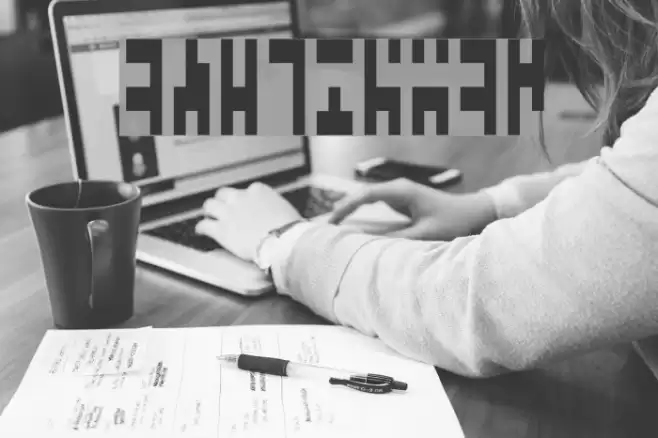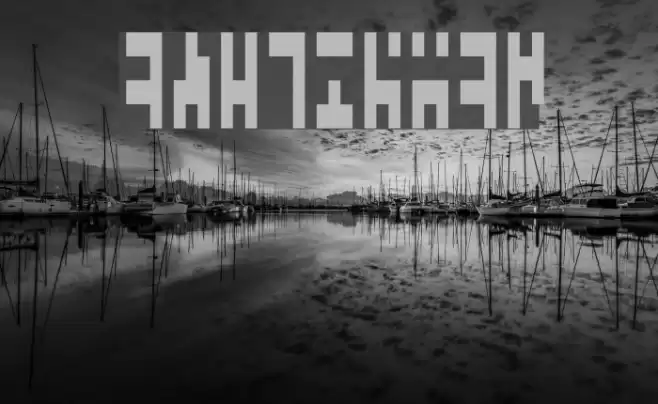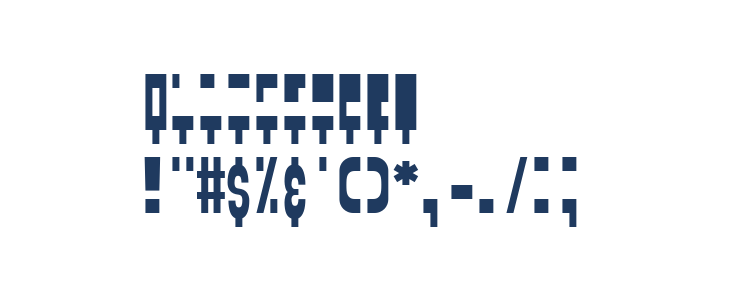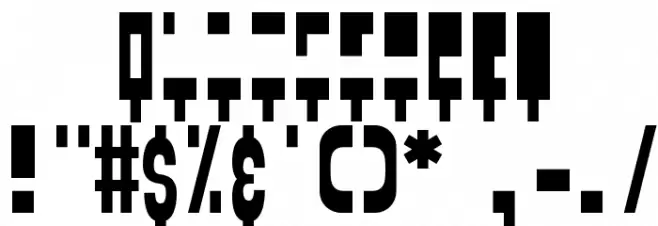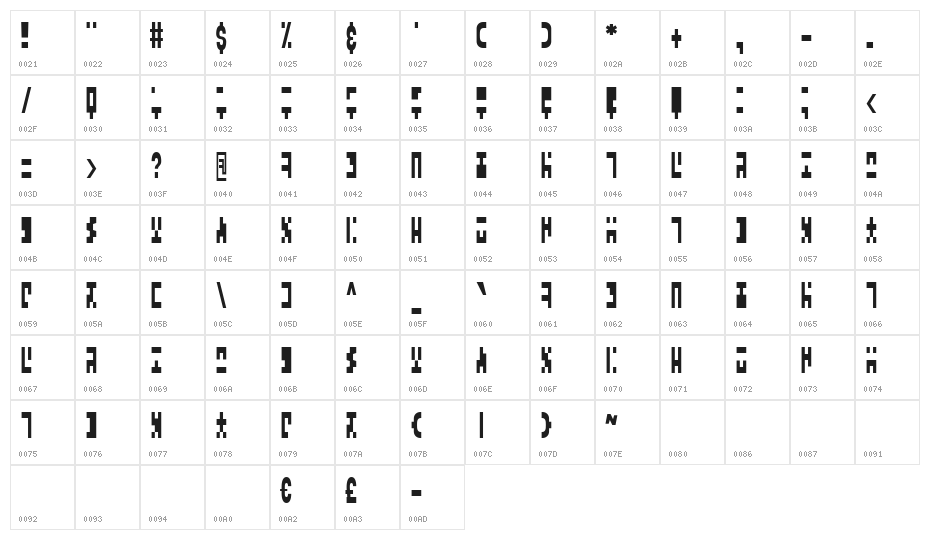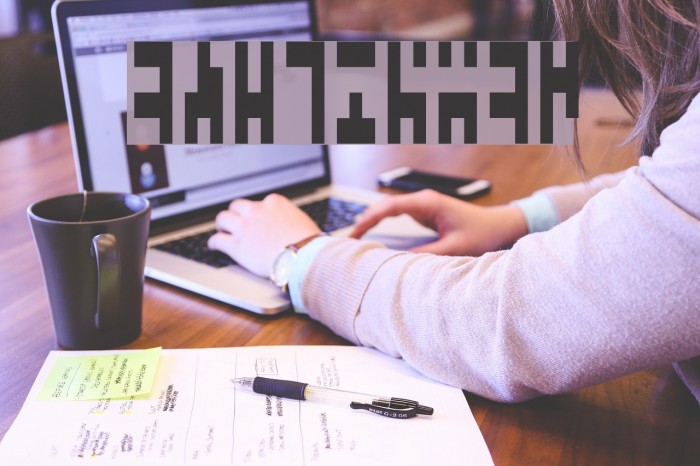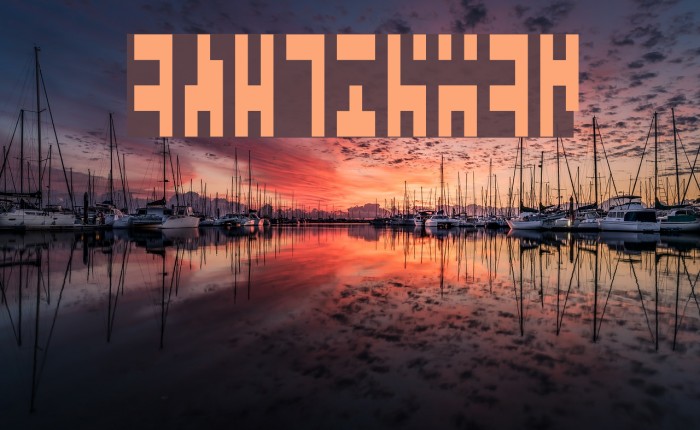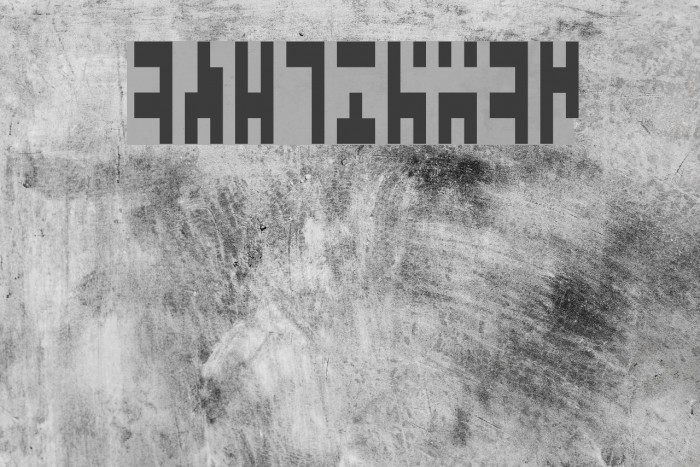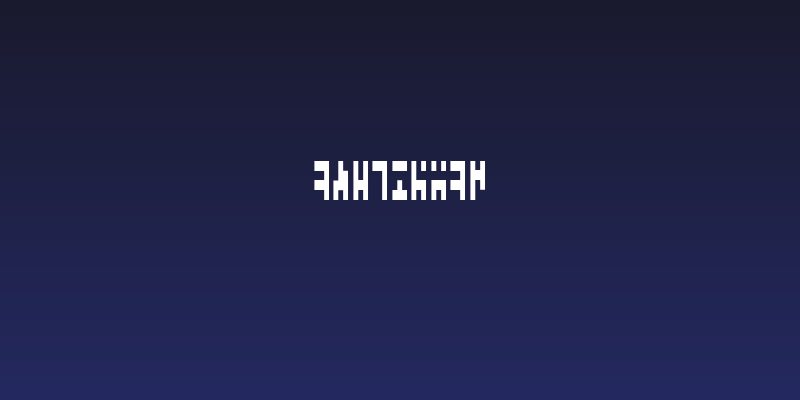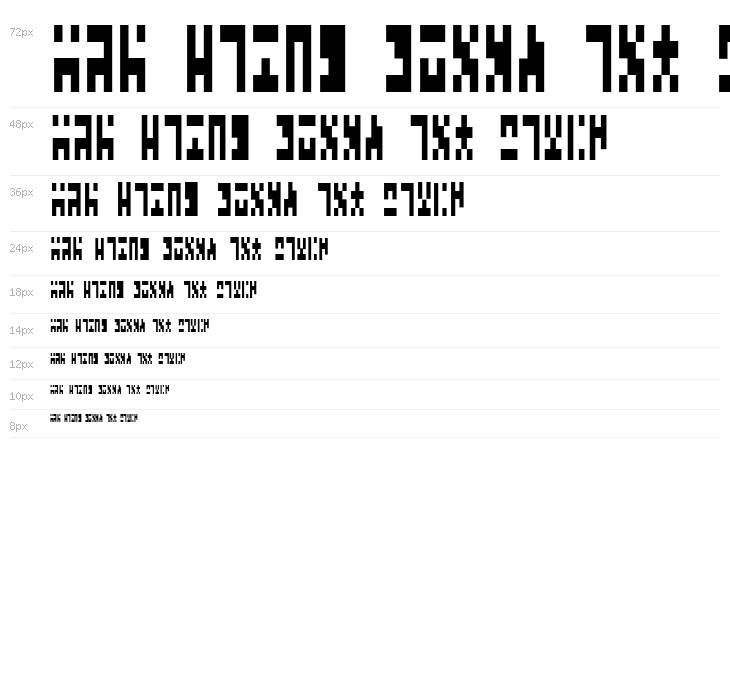
Anquietas Font
Anquietas Description
This font features a bold, geometric design with a distinctly modern and futuristic aesthetic. The characters are constructed from thick, block-like shapes, giving them a strong and imposing presence. The design is highly stylized, with each letter and number appearing almost like a puzzle piece, fitting together in a visually striking manner. The font's angular and rigid structure makes it ideal for creating a sense of technological advancement or digital innovation. The uniformity in stroke width across all characters contributes to a cohesive and balanced appearance, while the lack of curves and emphasis on straight lines enhances its contemporary feel.
A bold, geometric font with a modern, futuristic style from Uncategorized fonts.